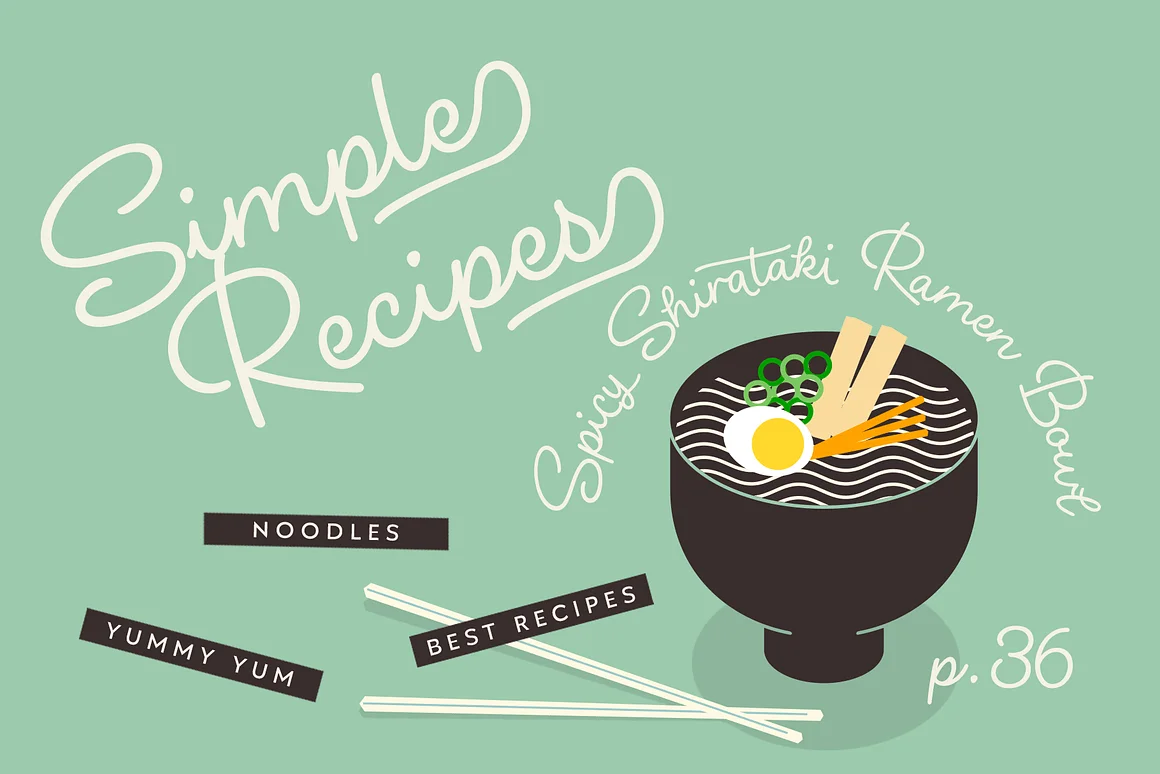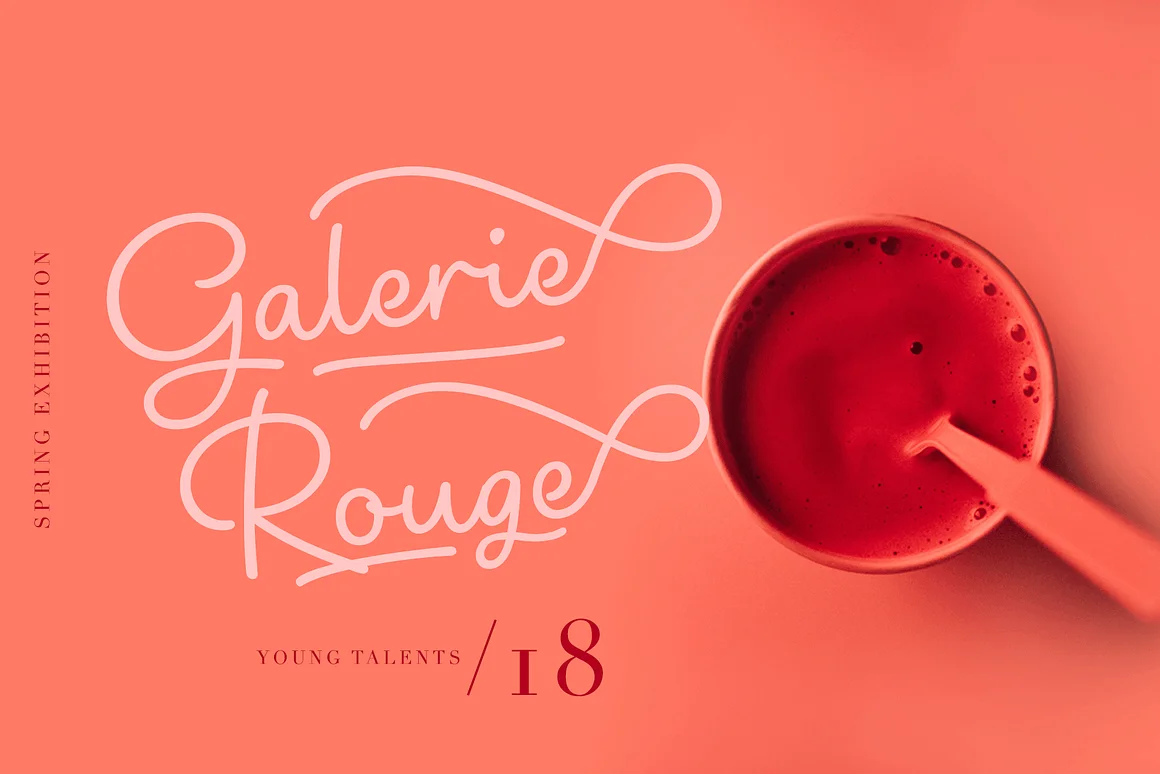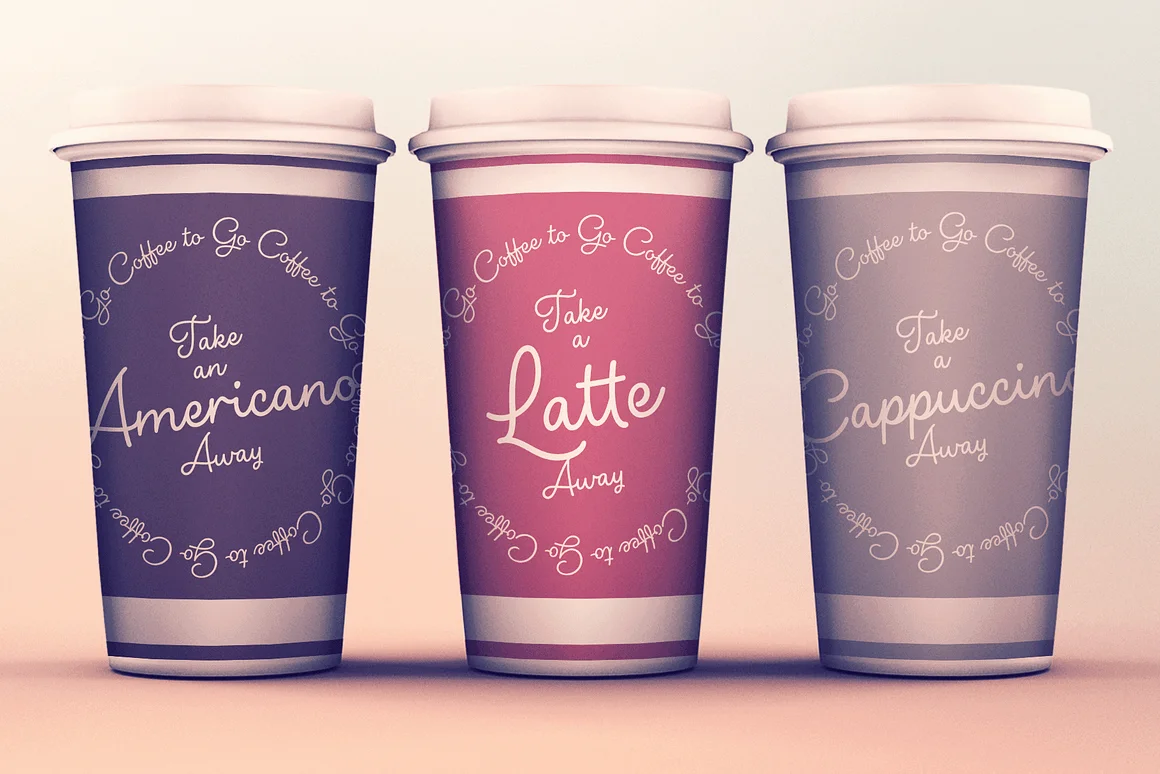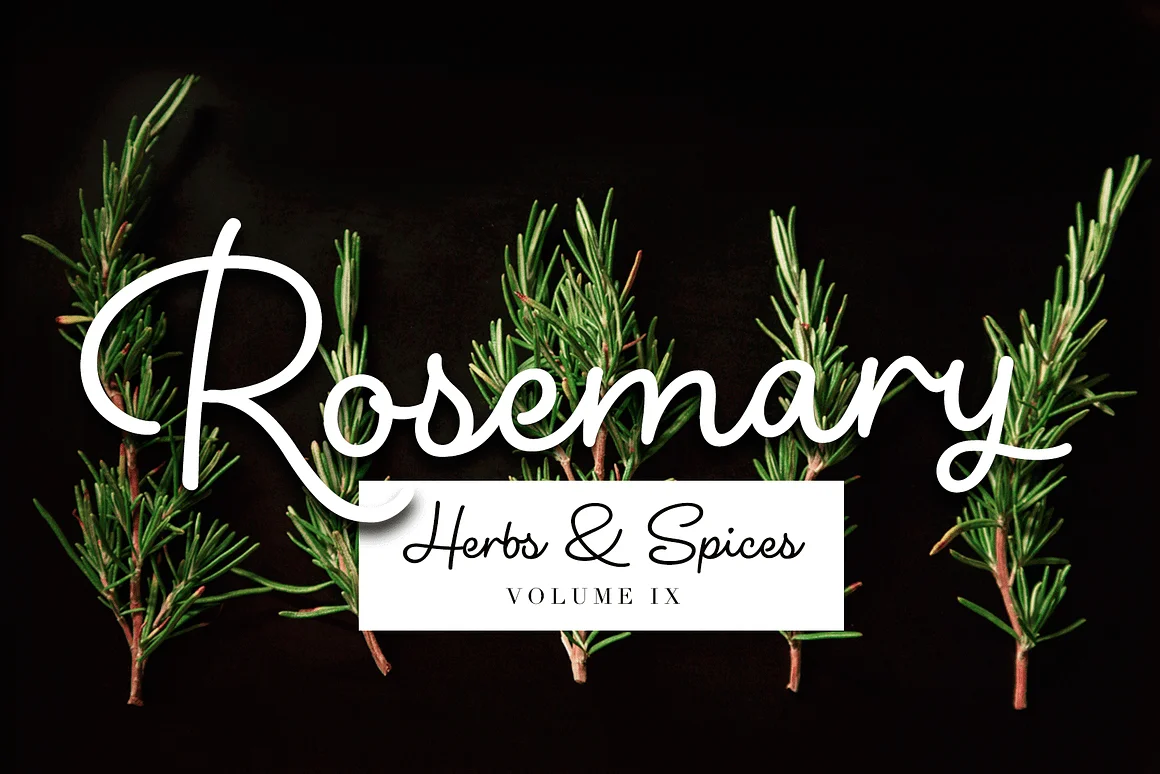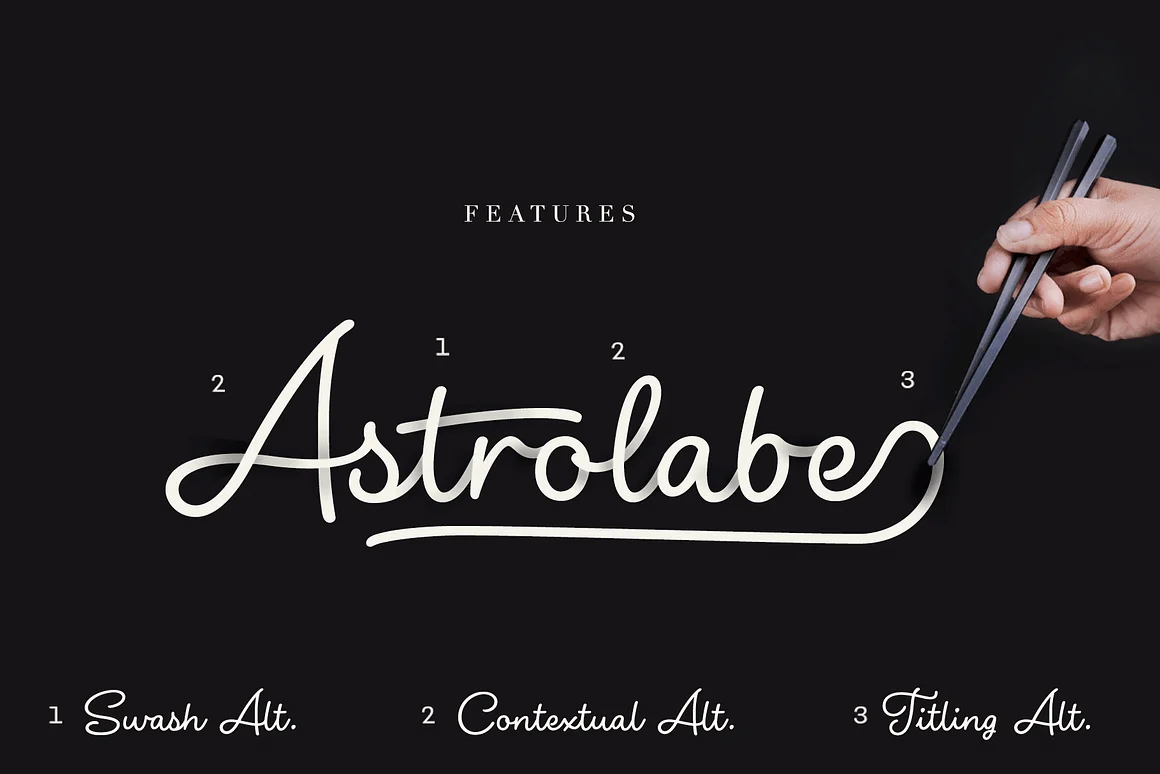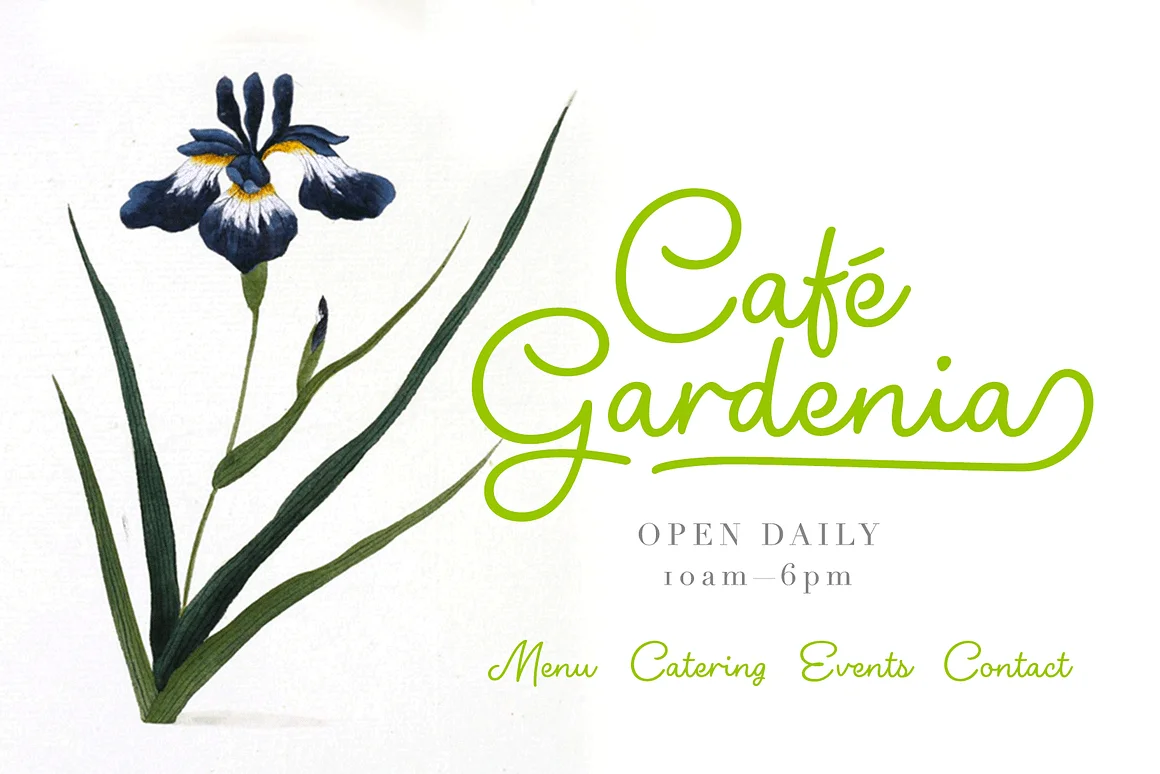
Shirataki Script Font
Shirataki Script Font is perfect for wedding invitations, personal branding, elegant greeting cards, luxury product packaging, and sophisticated social media graphics. Its flowing, handwritten style adds a refined and artistic touch to any project.
What makes Shirataki Script Font exciting is its graceful curves and natural, fluid strokes, which give designs a sense of movement and elegance. This script font brings personality and charm while maintaining readability, making it ideal for both creative and professional applications.
The Shirataki Script Font family includes Regular, Bold Script, and Swash variations, providing flexibility to create unique compositions and decorative accents. These options allow designers to adapt the font to a wide range of creative needs.